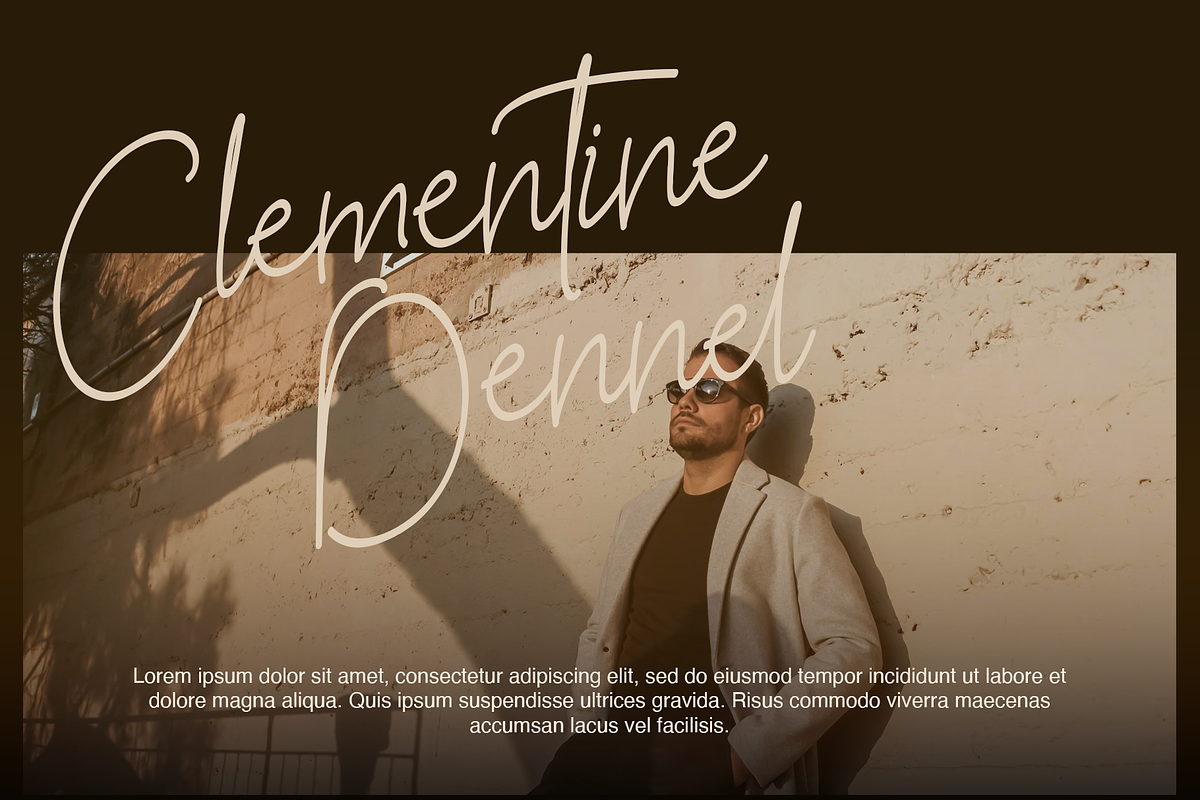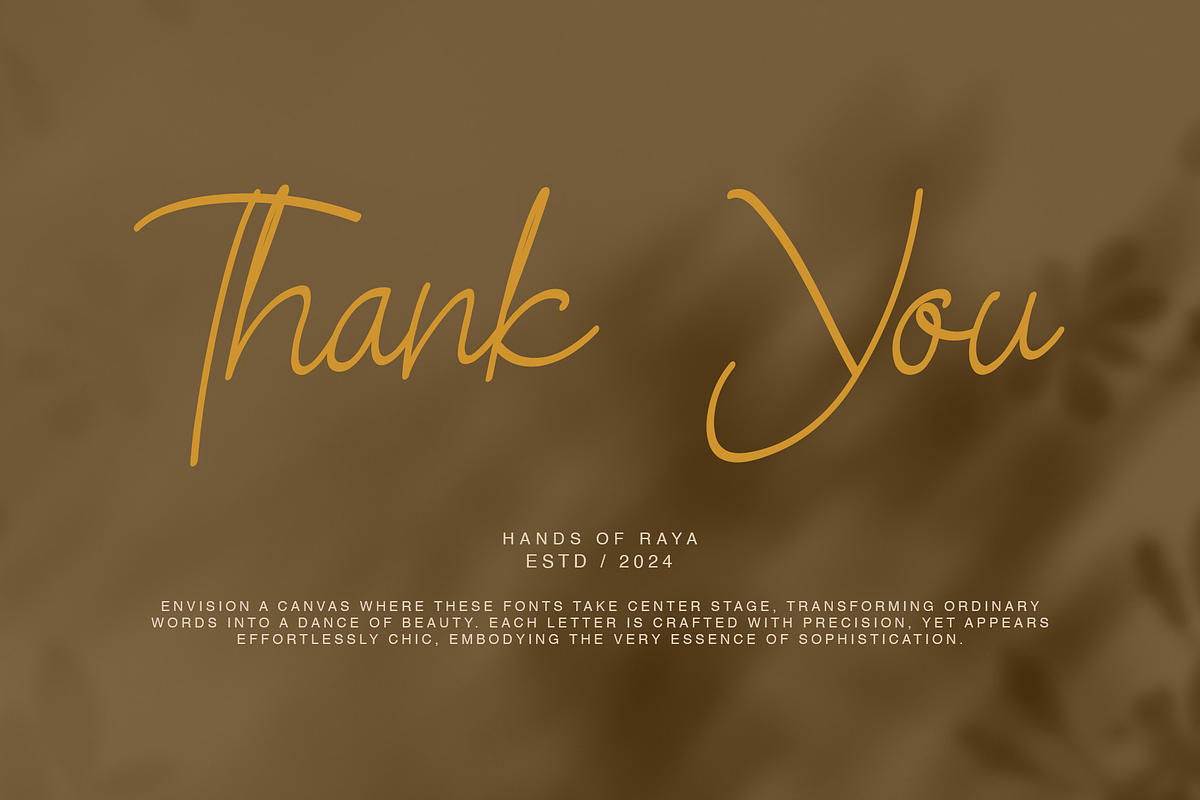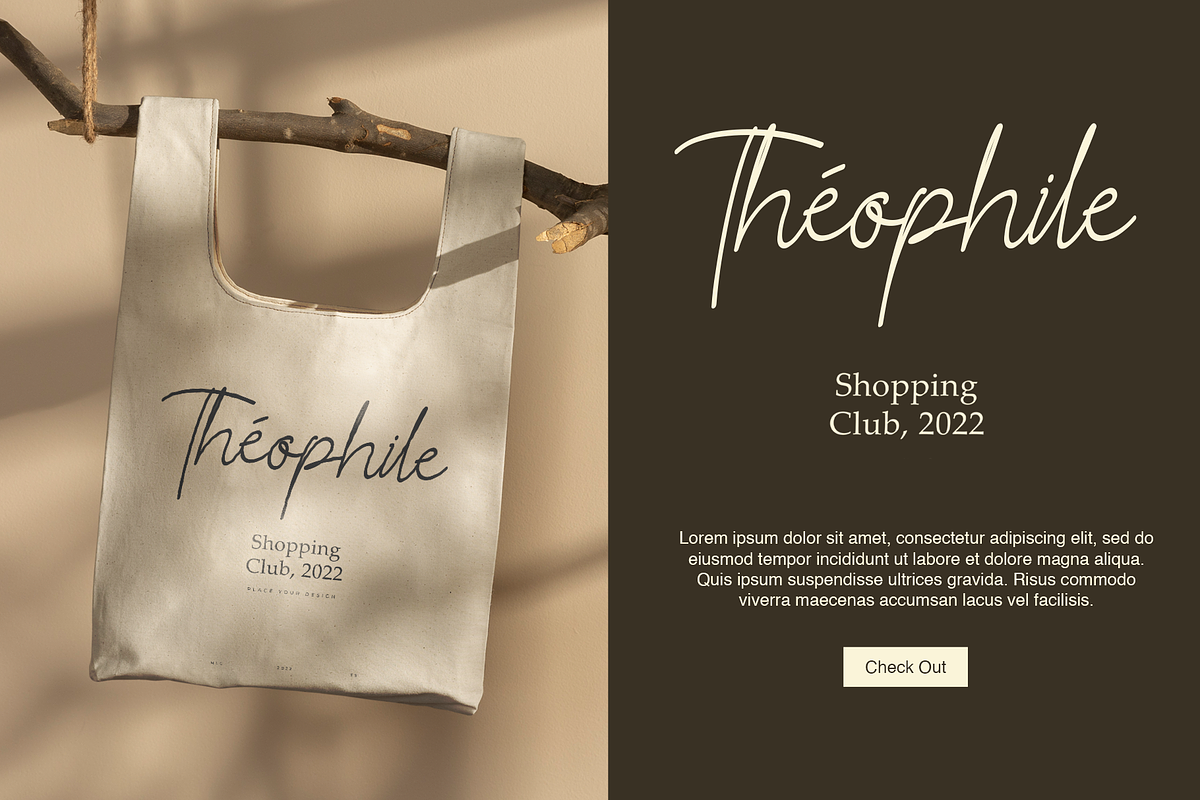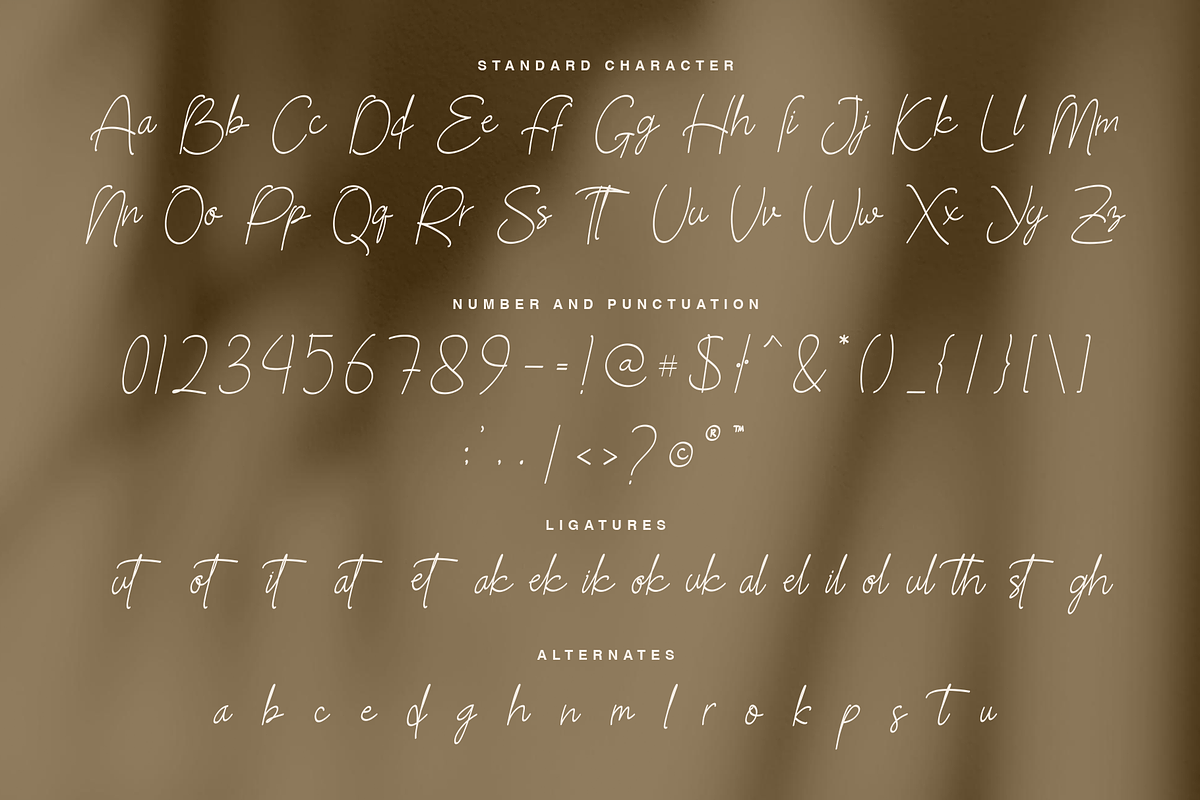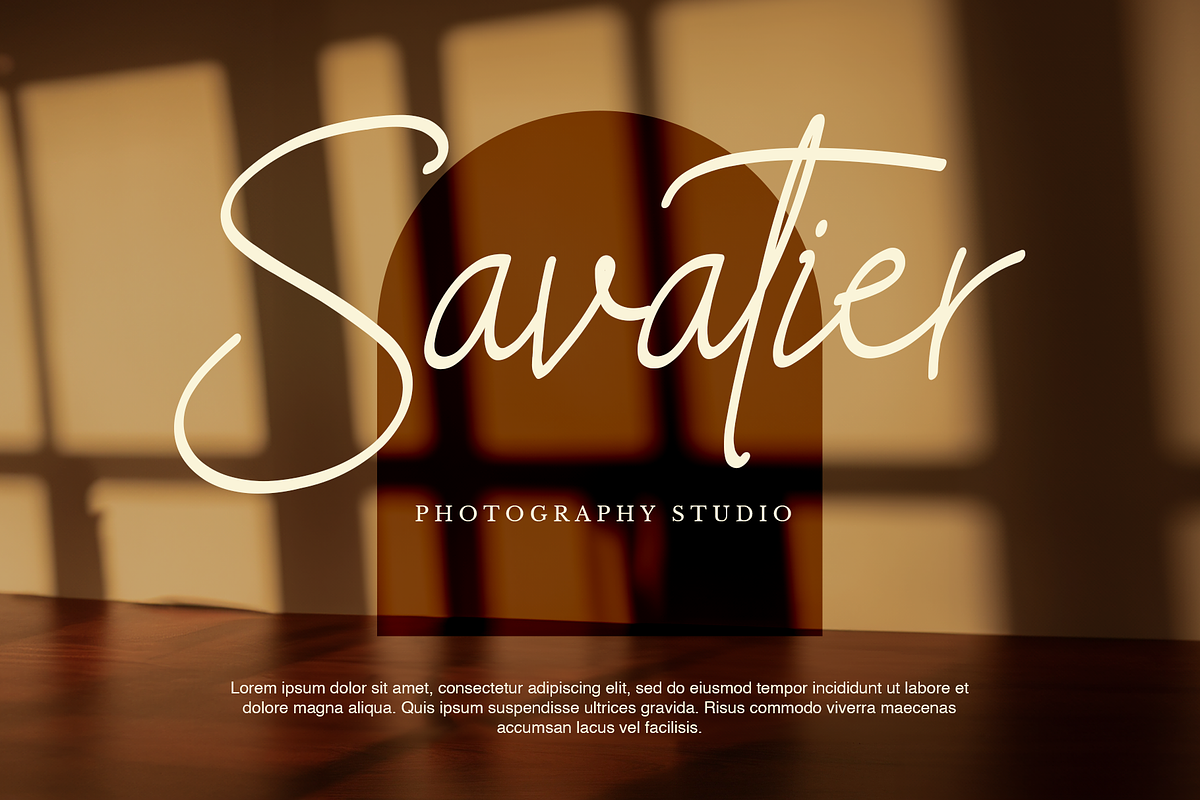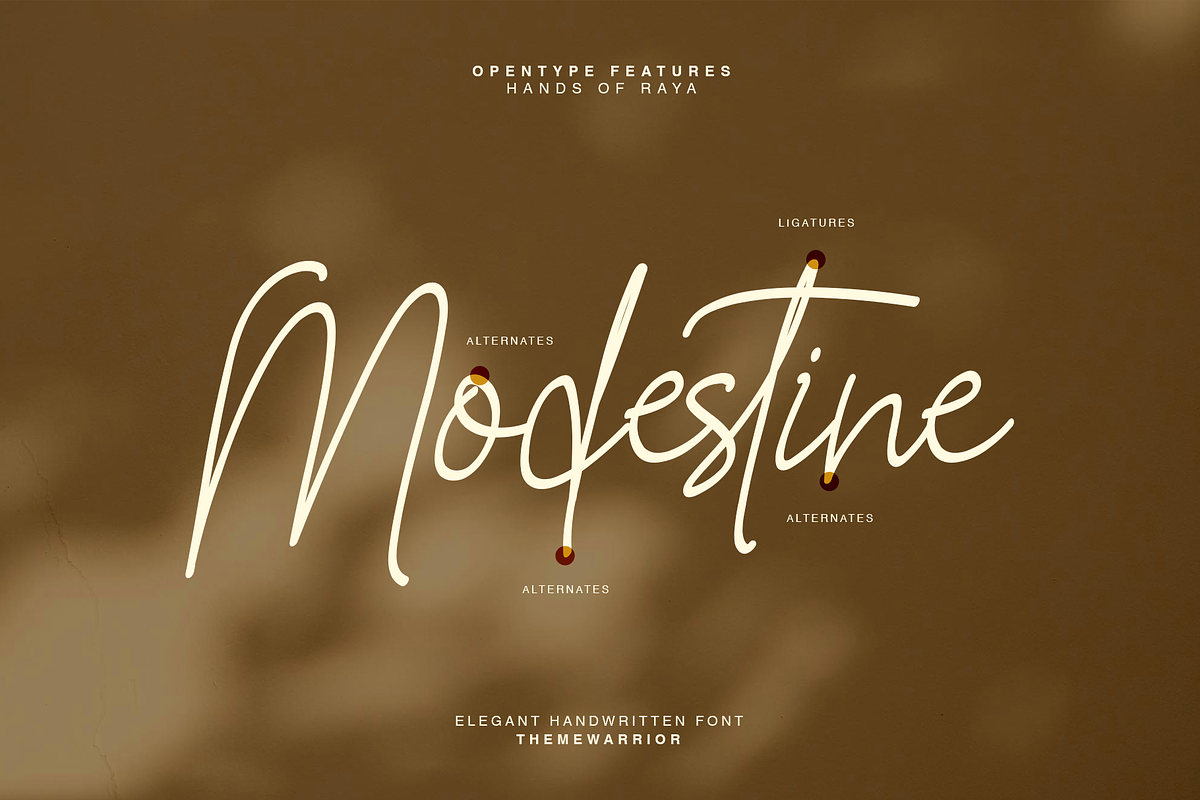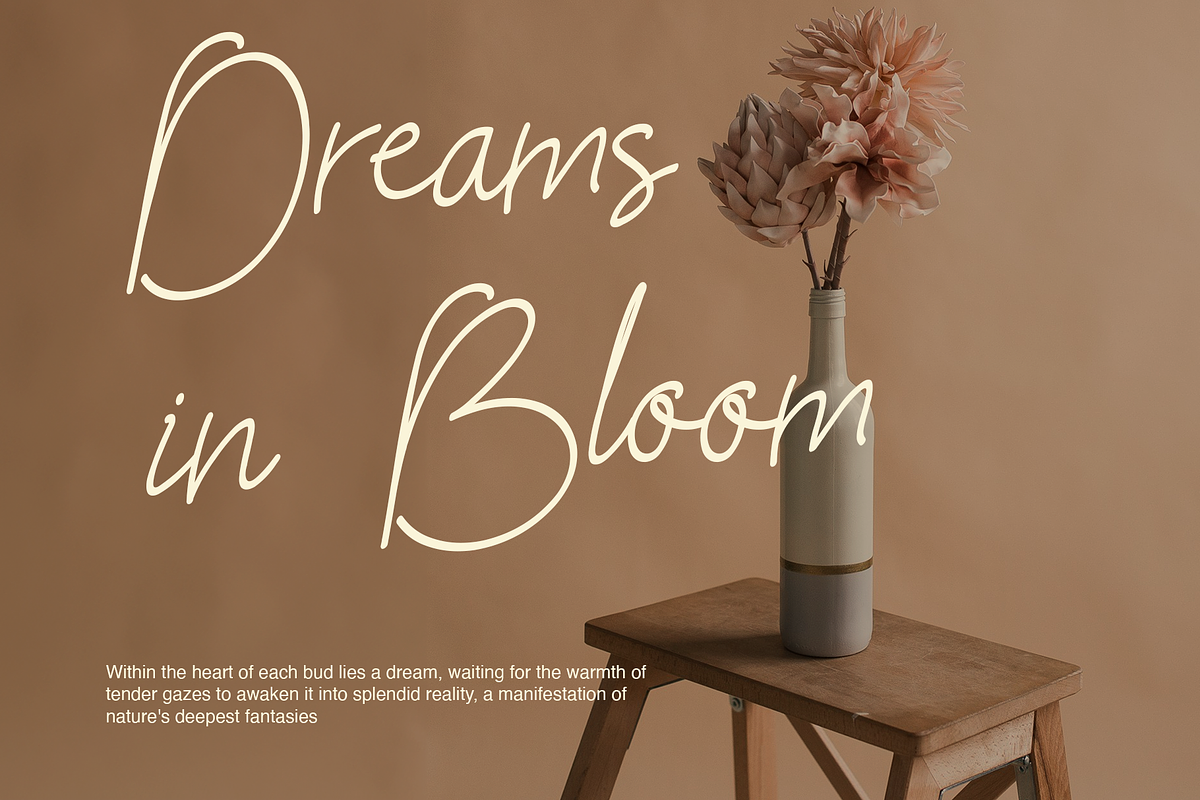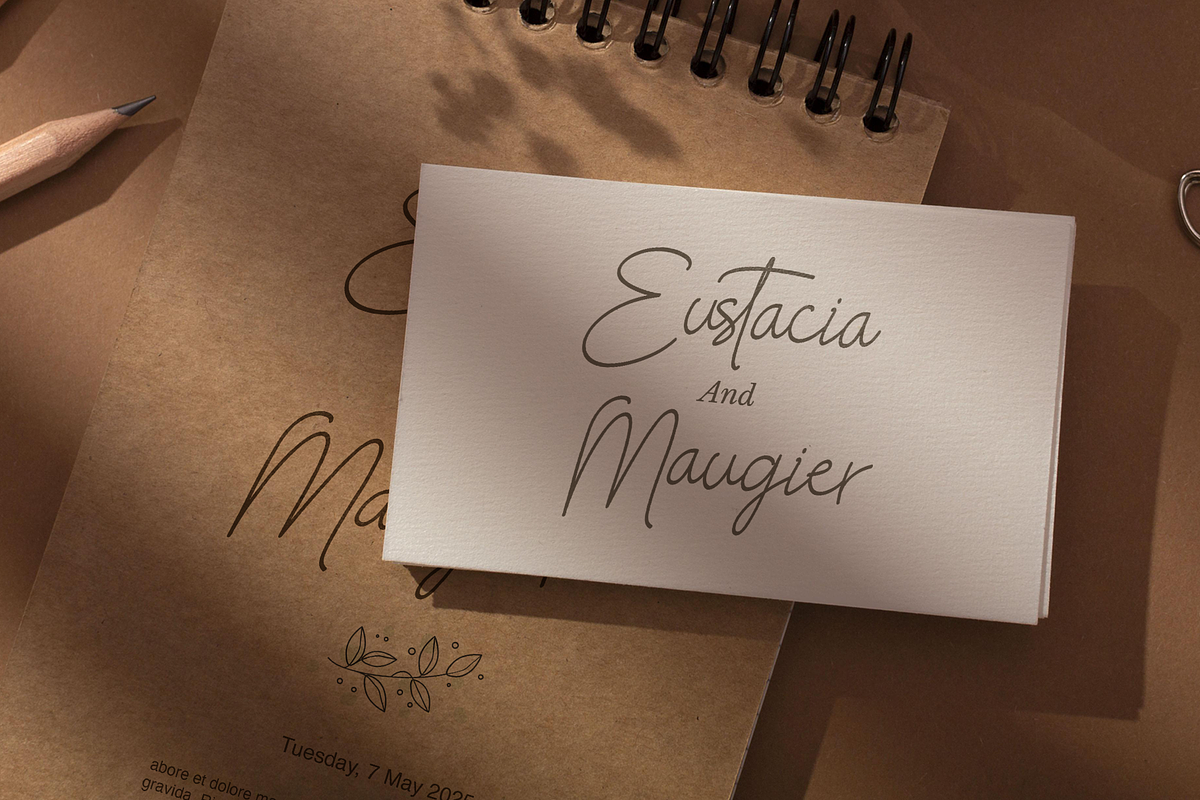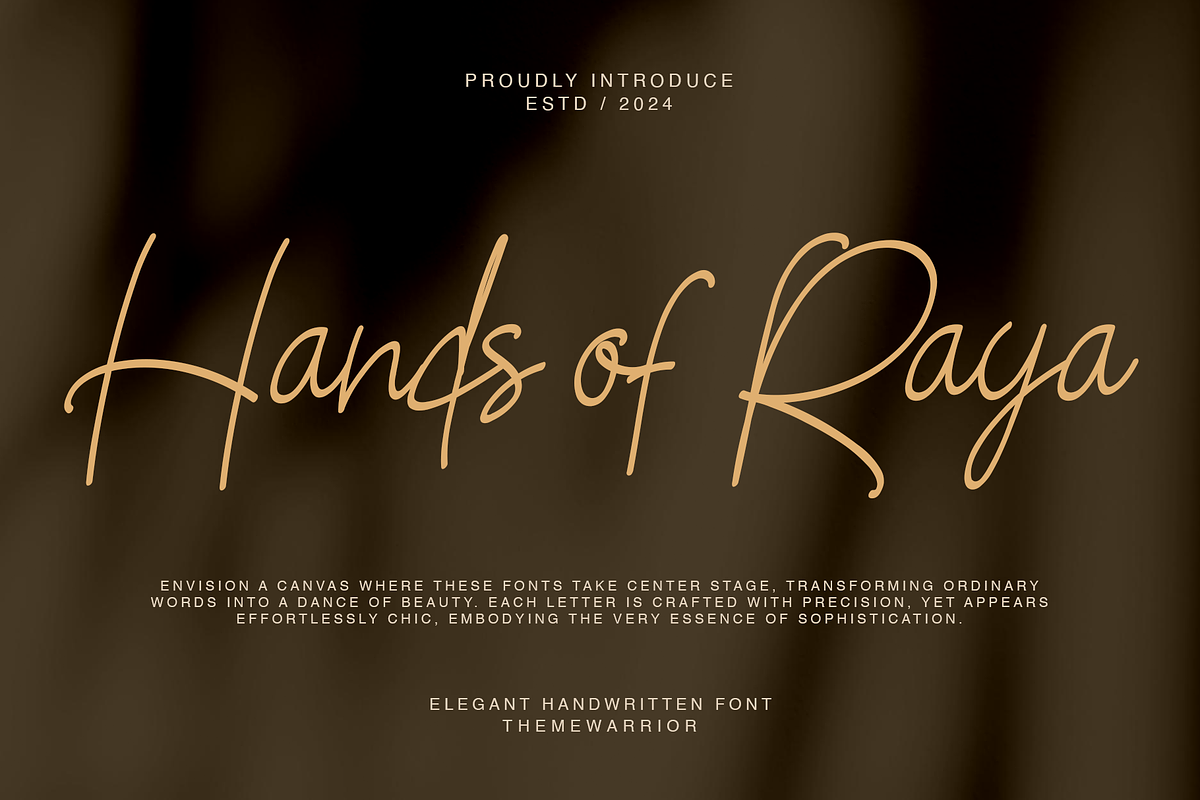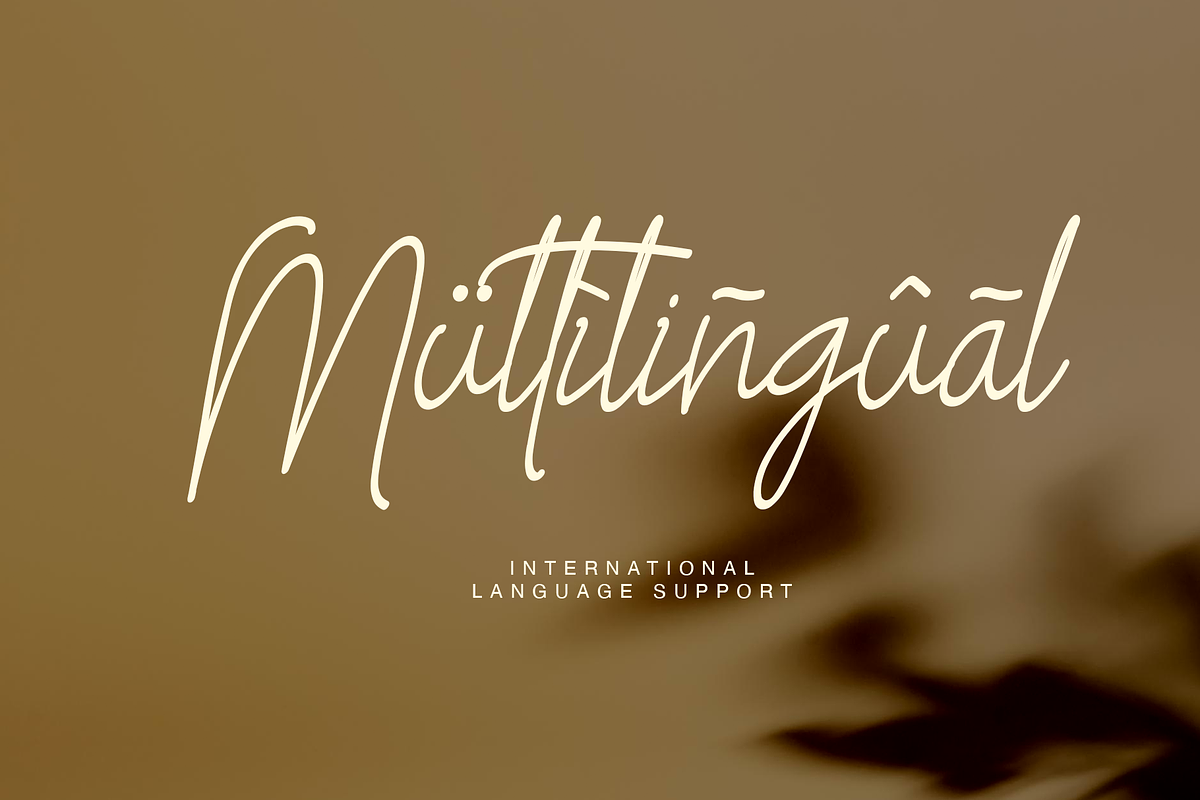
Hands of Raya Handwritten Font
Hands of Raya is a captivating script font that embodies the essence of handwritten elegance. With its fluid strokes and graceful curves, Hands of Raya adds a personal touch to any project, whether it's wedding invitations, greeting cards, branding, or social media posts. Infuse your designs with warmth and authenticity as you harness the charm of this versatile font.